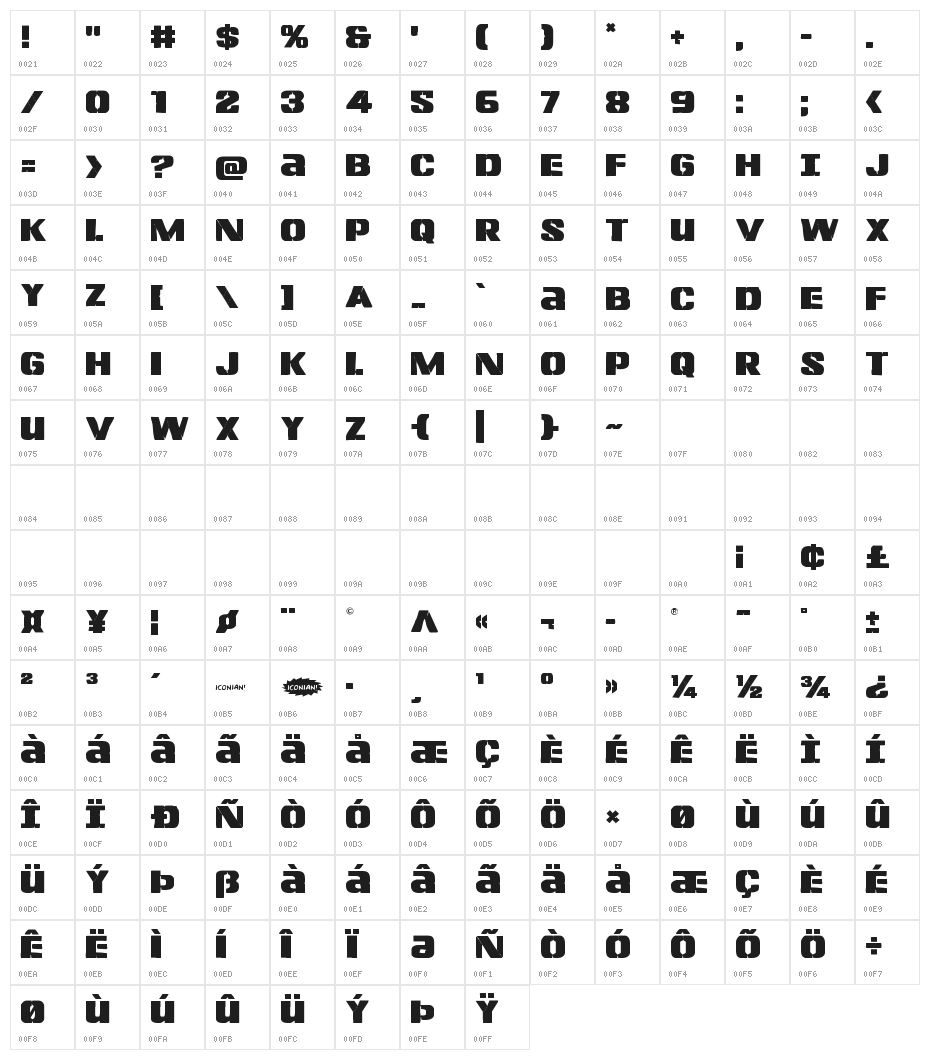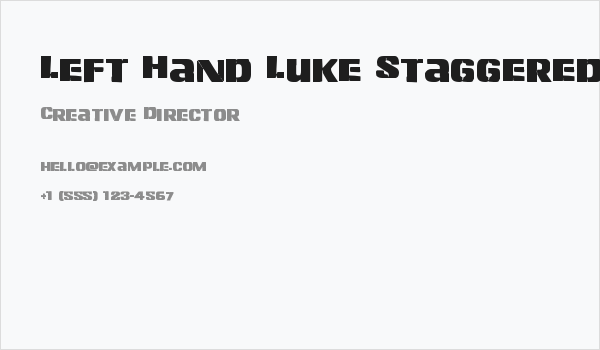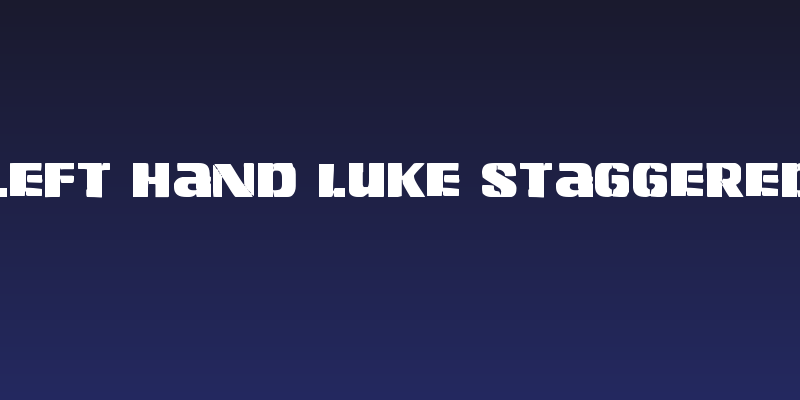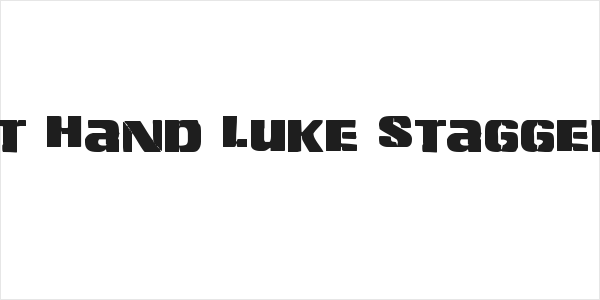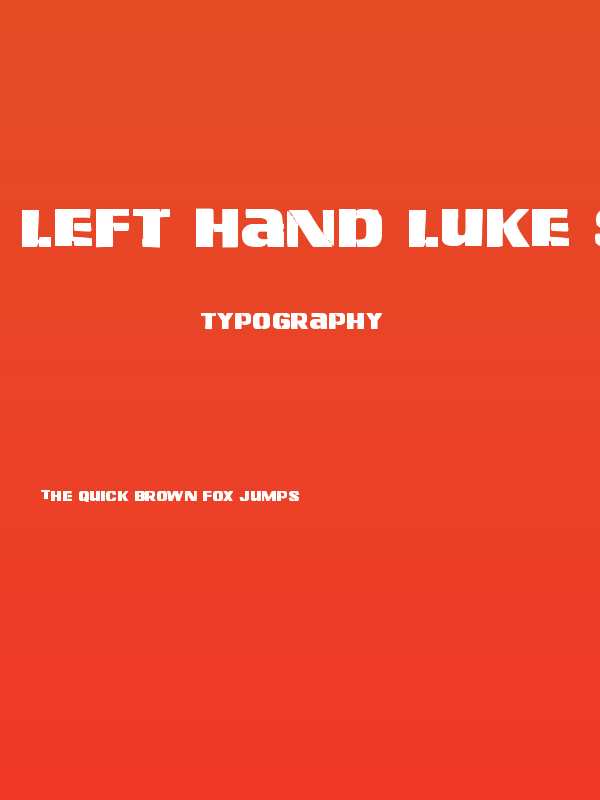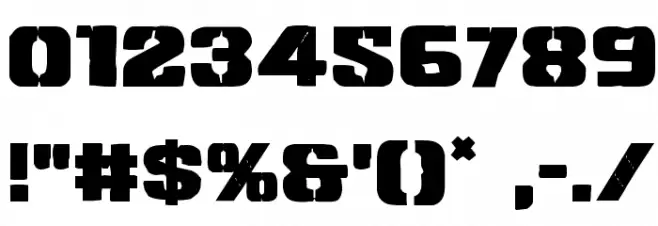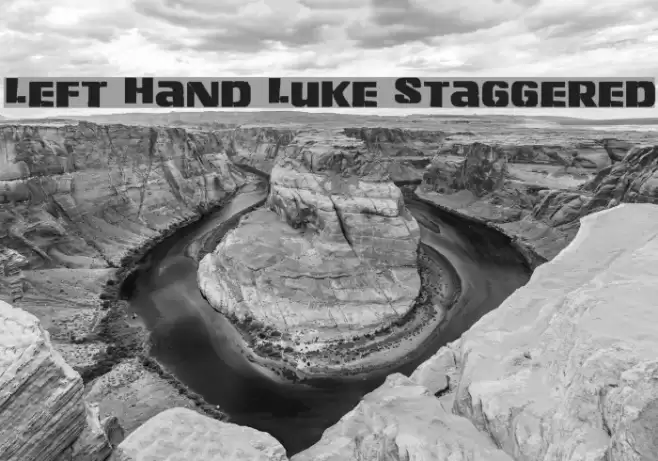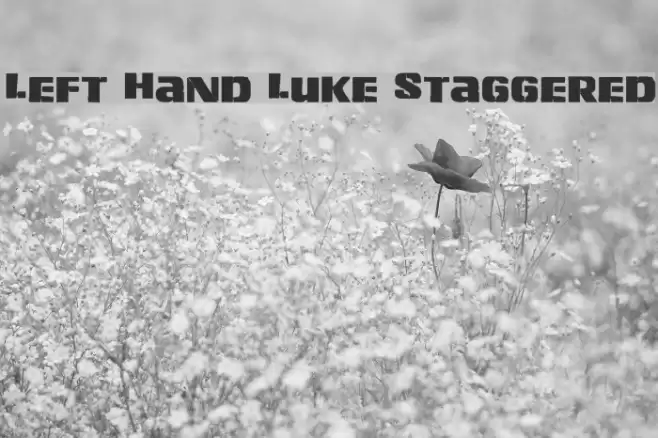
Left Hand Luke Staggered Font
Left Hand Luke Staggered Description
This font features a bold, rugged design with a distressed, stencil-like appearance. The characters are blocky and robust, with uneven edges that give them a worn, industrial feel. The uppercase and lowercase letters maintain a consistent weight, adding to the font's strong visual impact. The numbers and special characters follow the same aesthetic, ensuring uniformity across all glyphs. This font's unique style makes it ideal for projects that require a gritty, urban look.
| Overall Style | Industrial, Urban, Rugged |
| Proposed Projects | Ideal for posters, album covers, urban-themed designs, and branding that requires a strong, gritty aesthetic. |